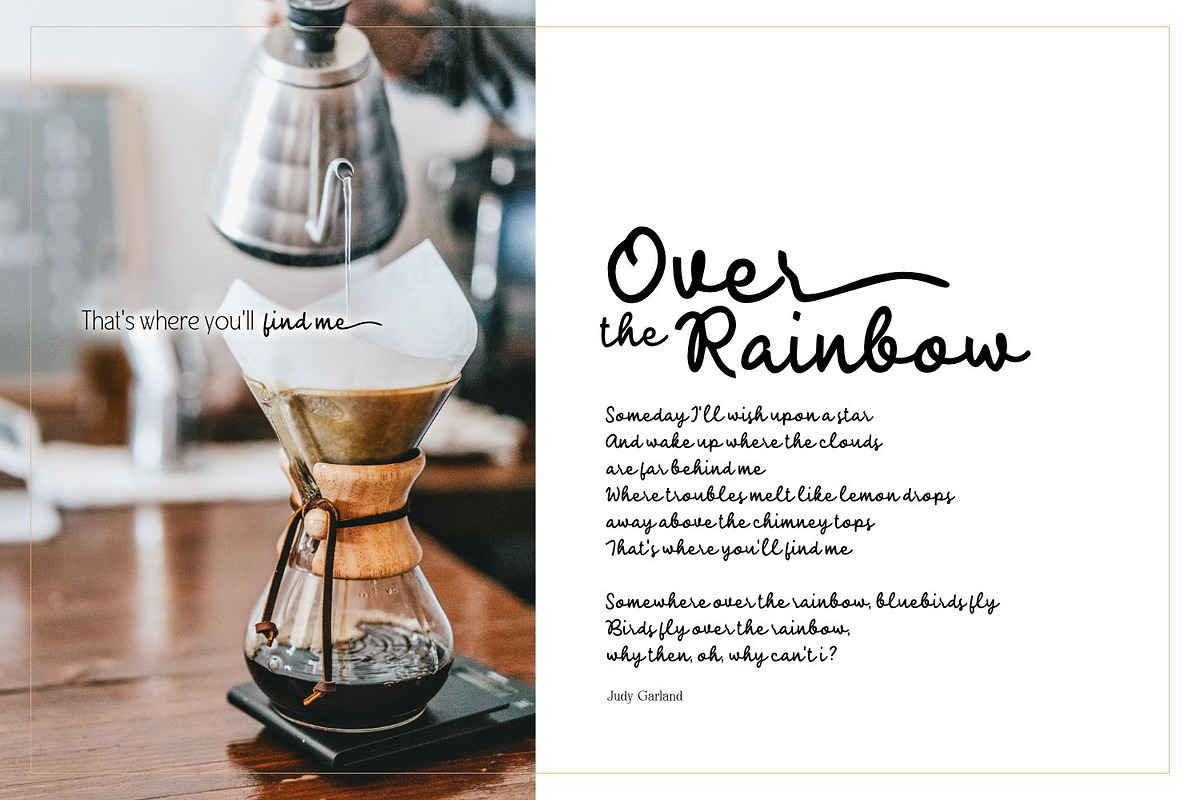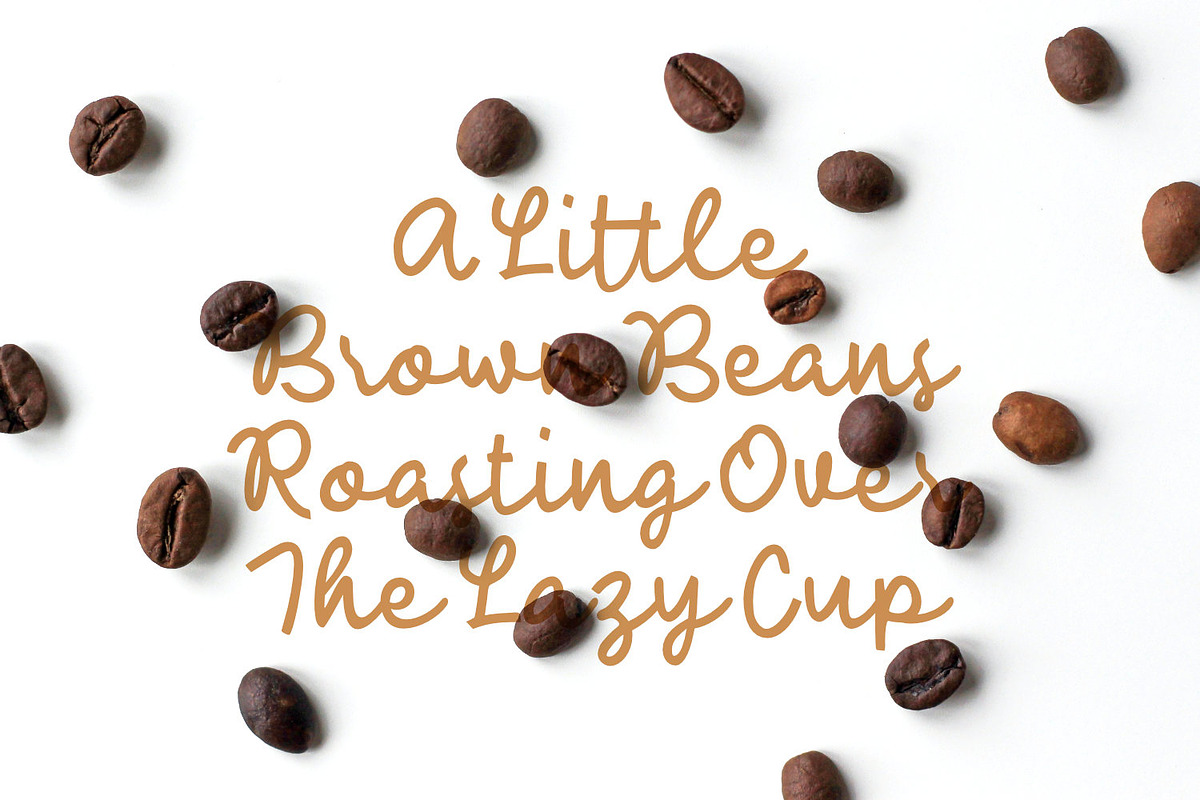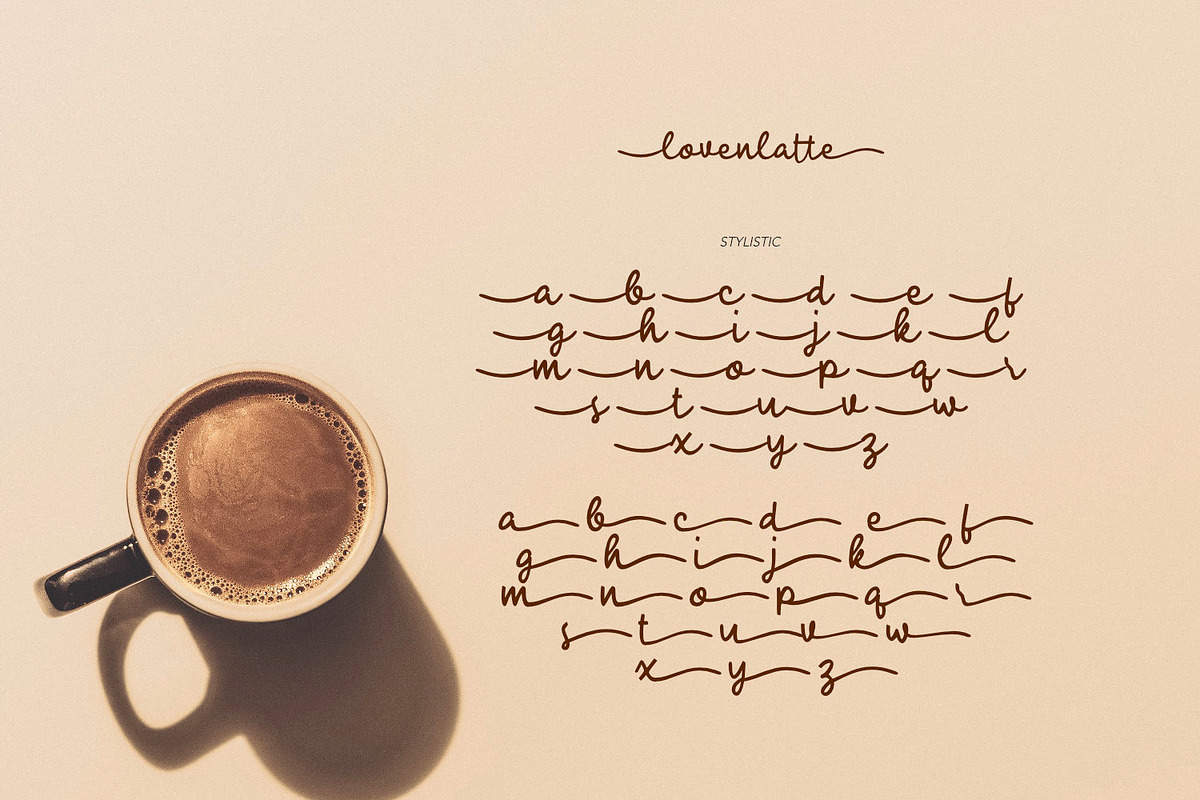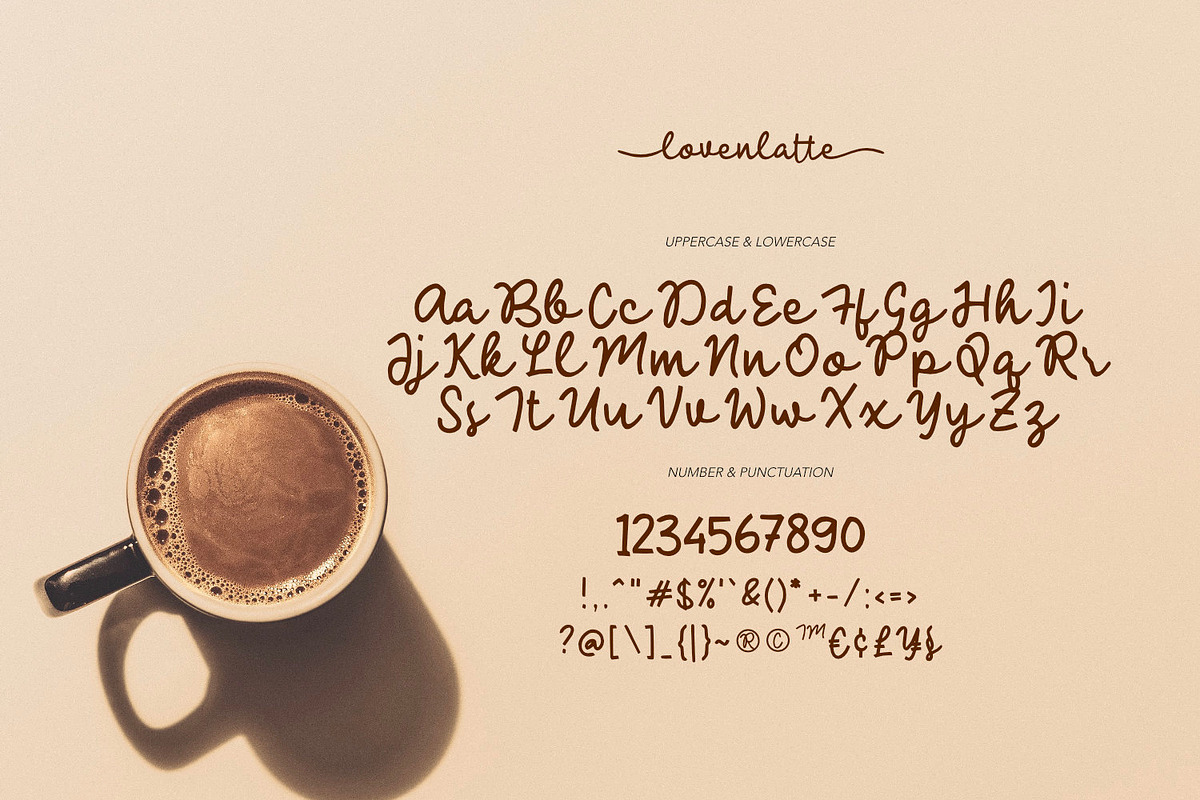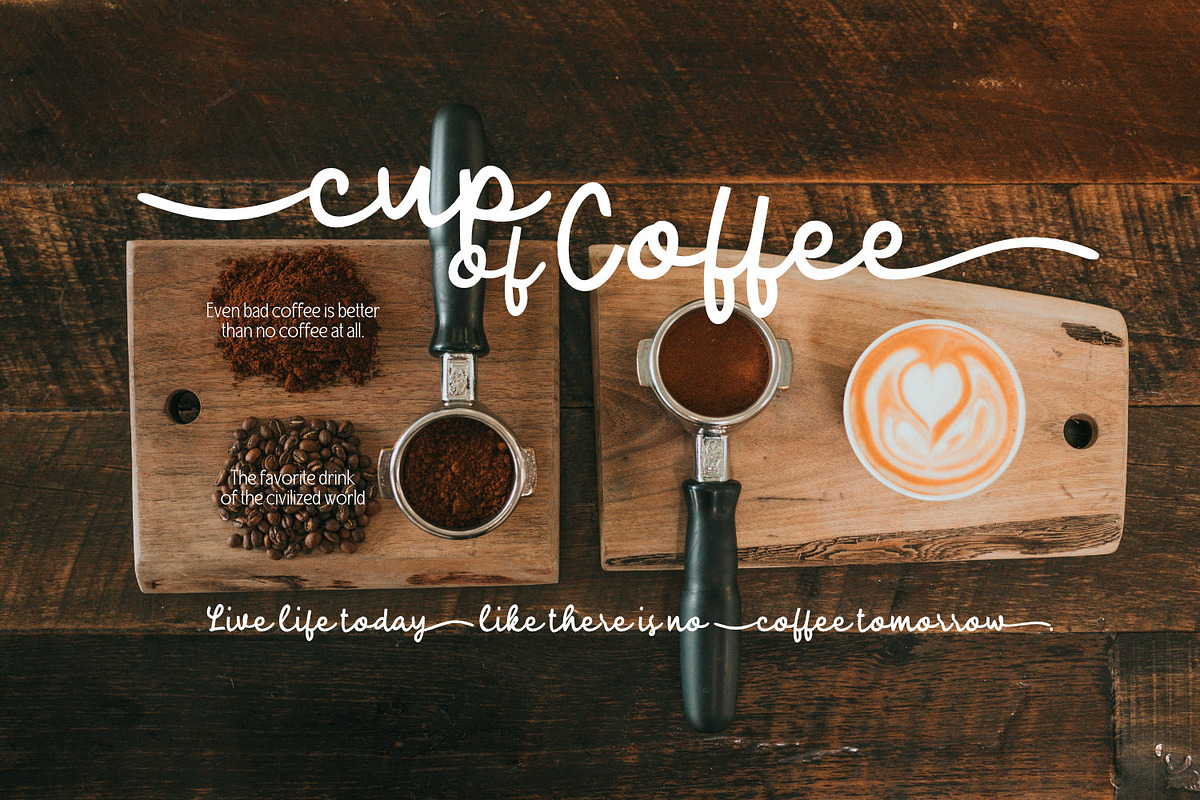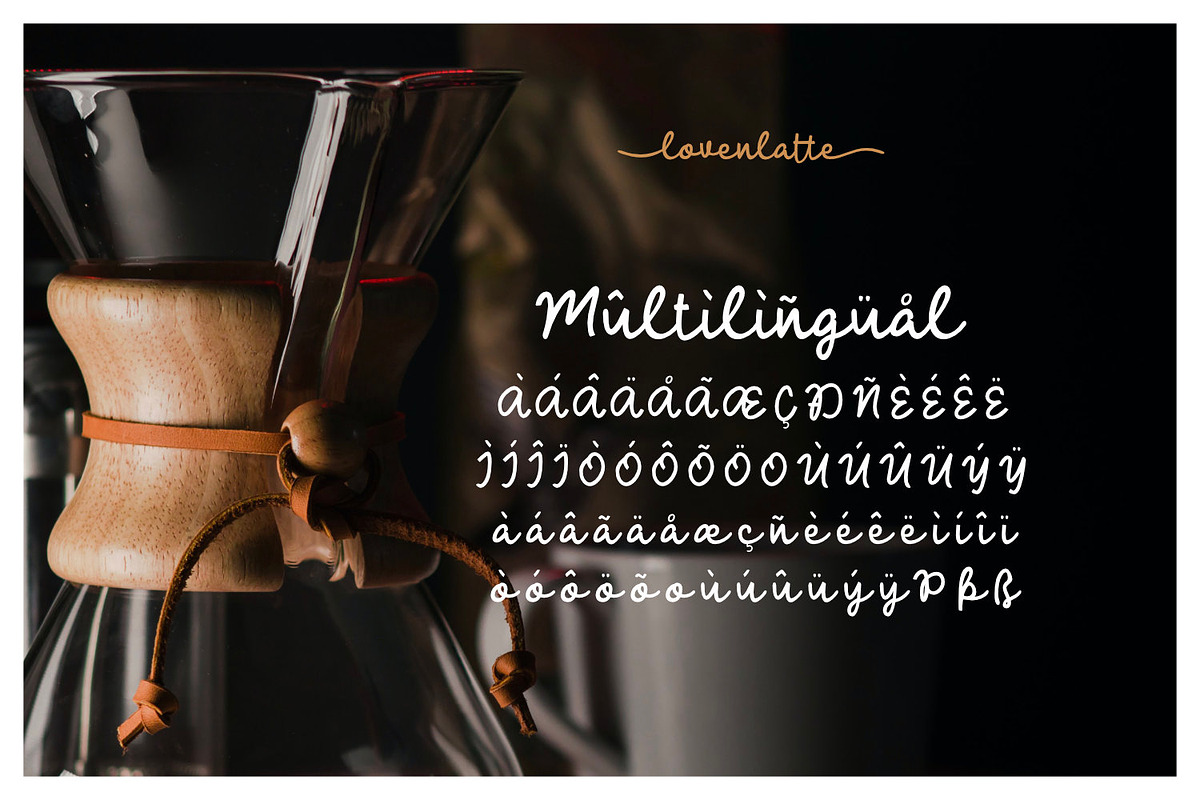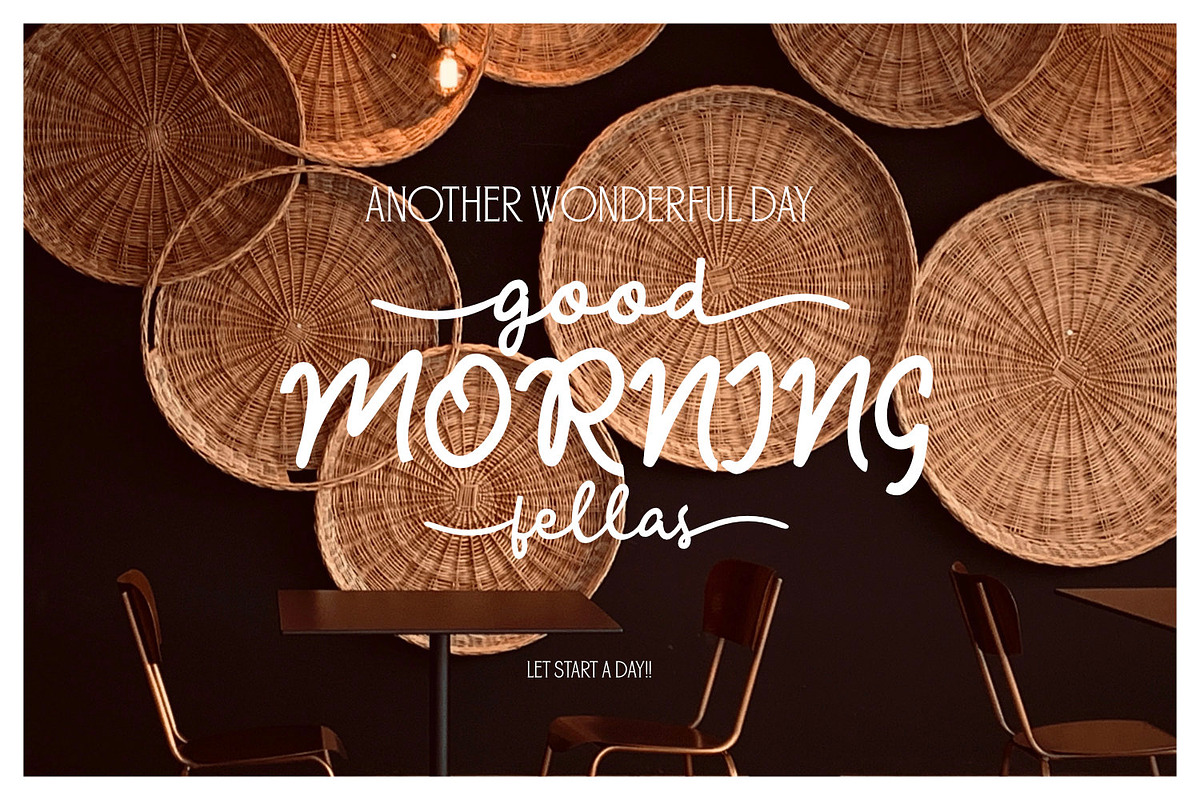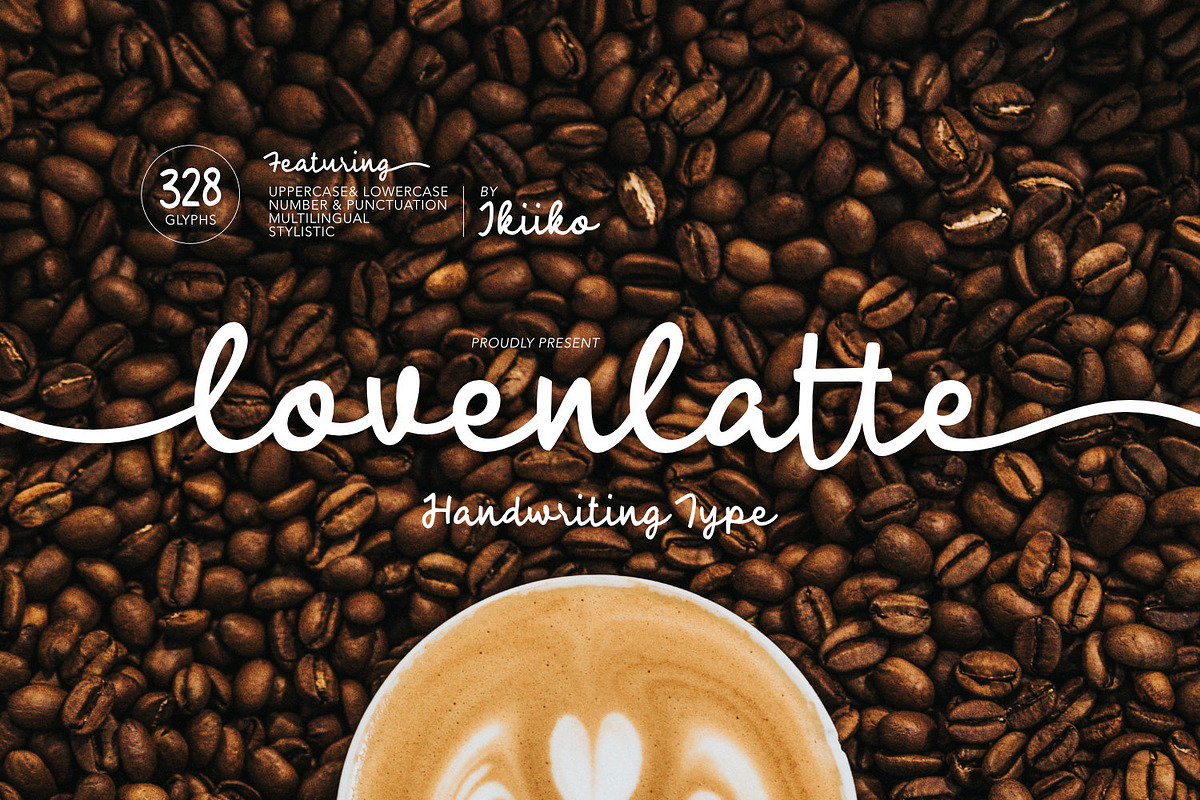
Loven Latte - Handwriting Type
Introducing Loven Latte - Handwriting Type created by ikiiko.
Loven Latte is a handwriting font style with unique line and a natural feel. This typeface is perfect for an wedding invitiation, magazine layout, love letter, beauty product, packaging product, food & beverages, quotes, or simply as a stylish text overlay to any background image.
- Number & Punctuation
- Stylistic